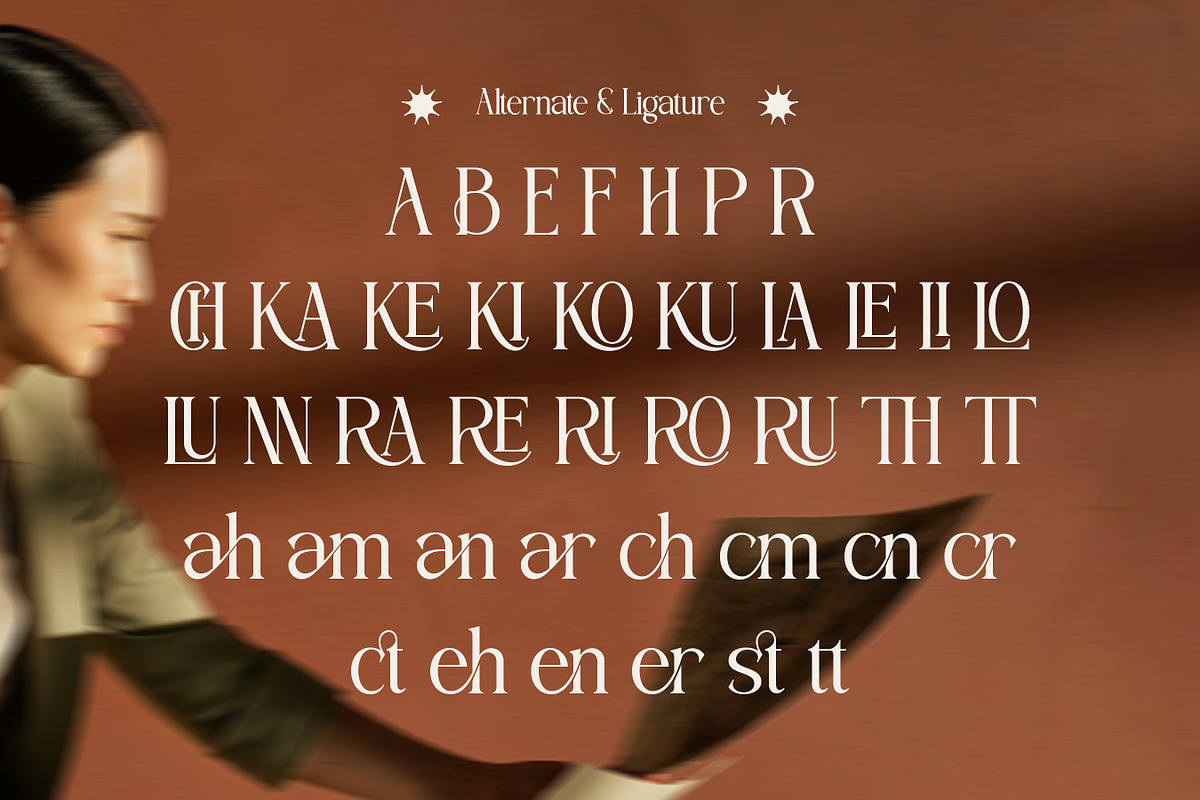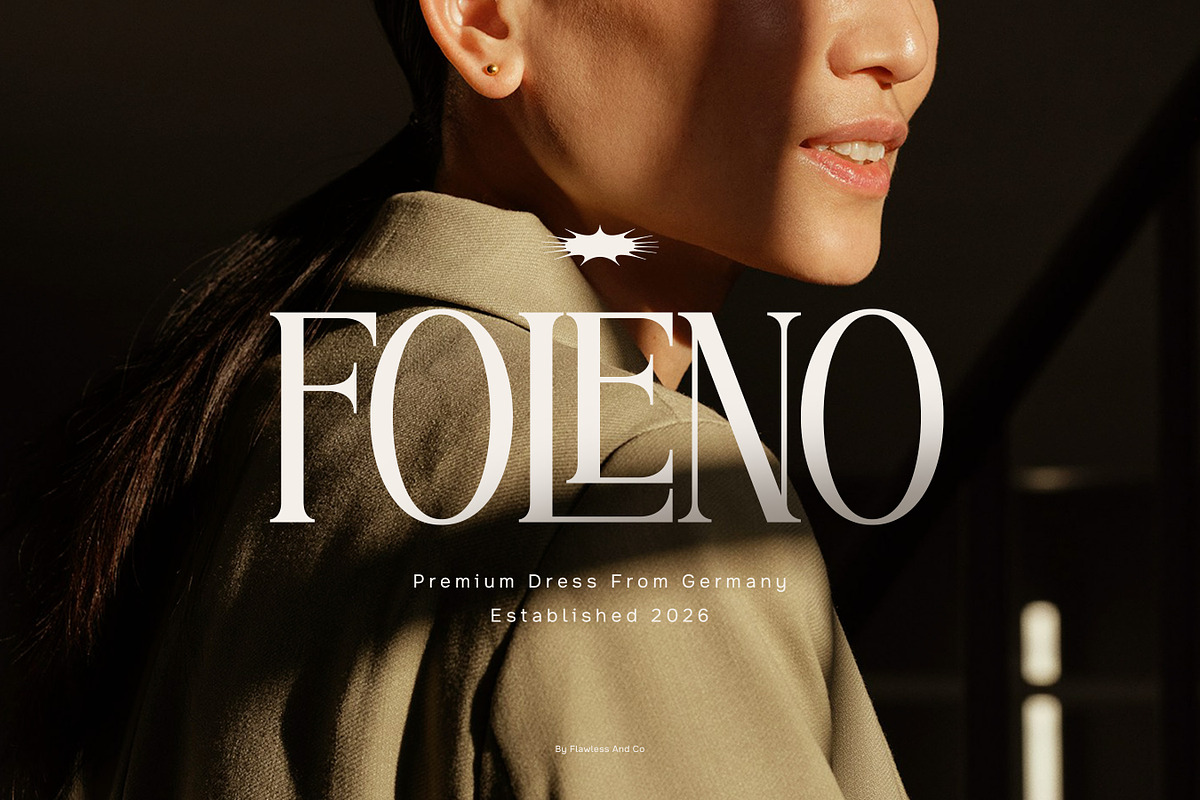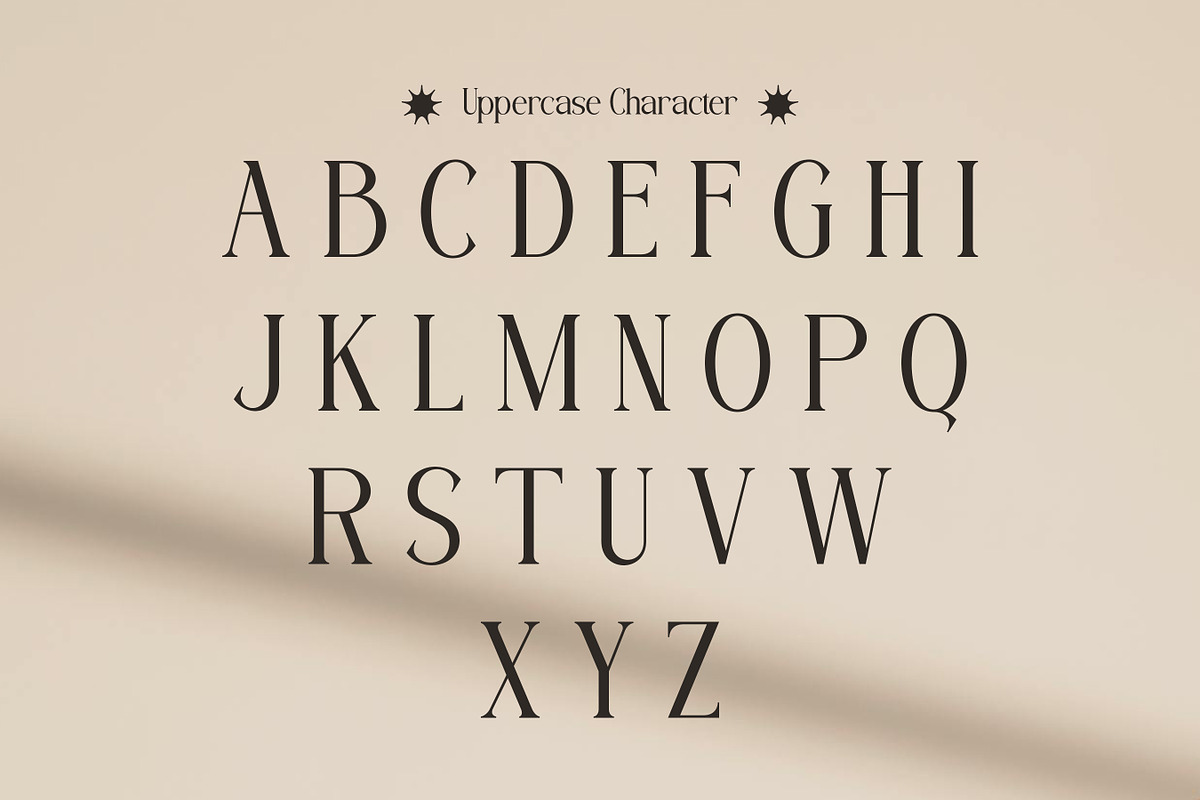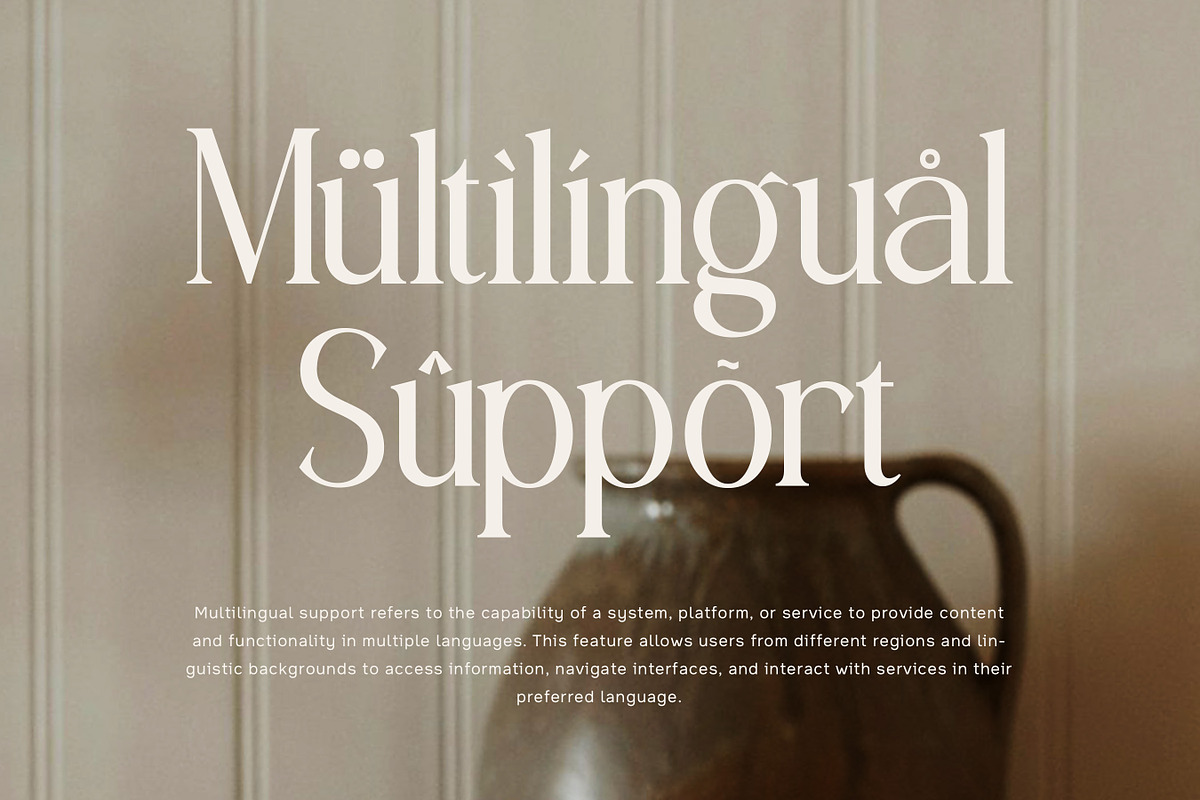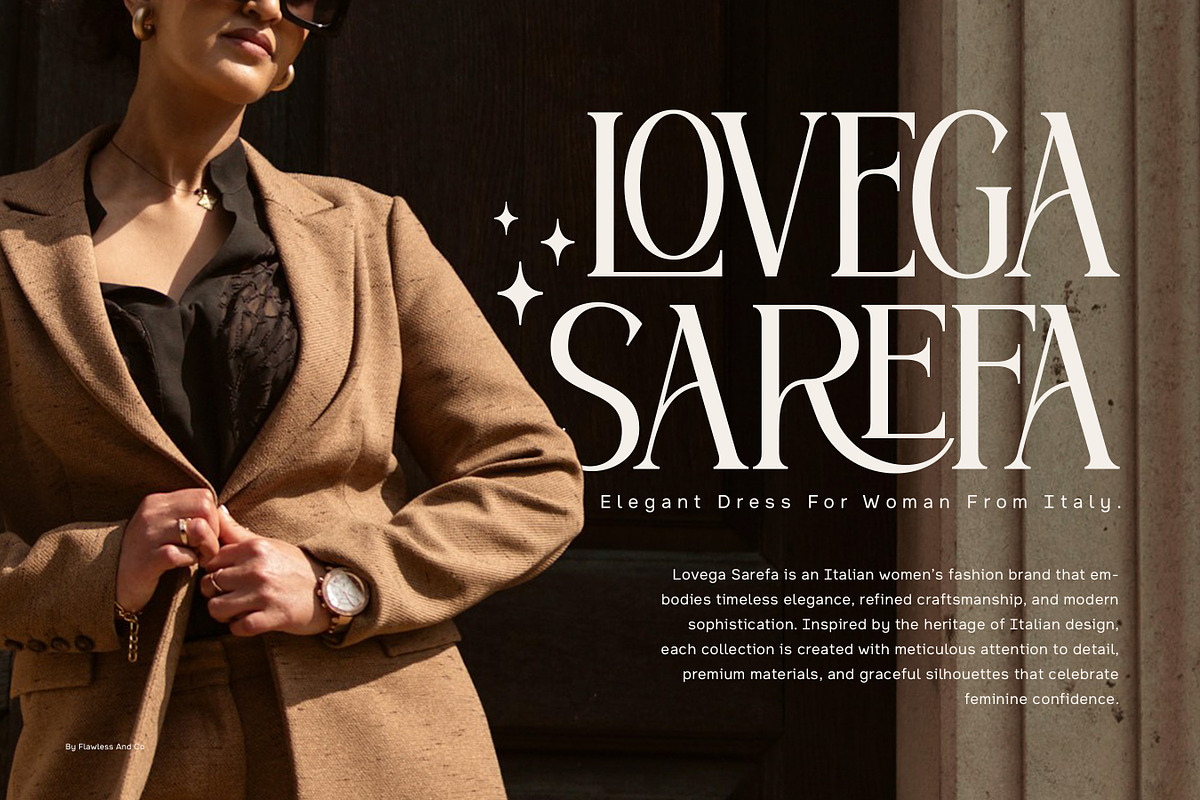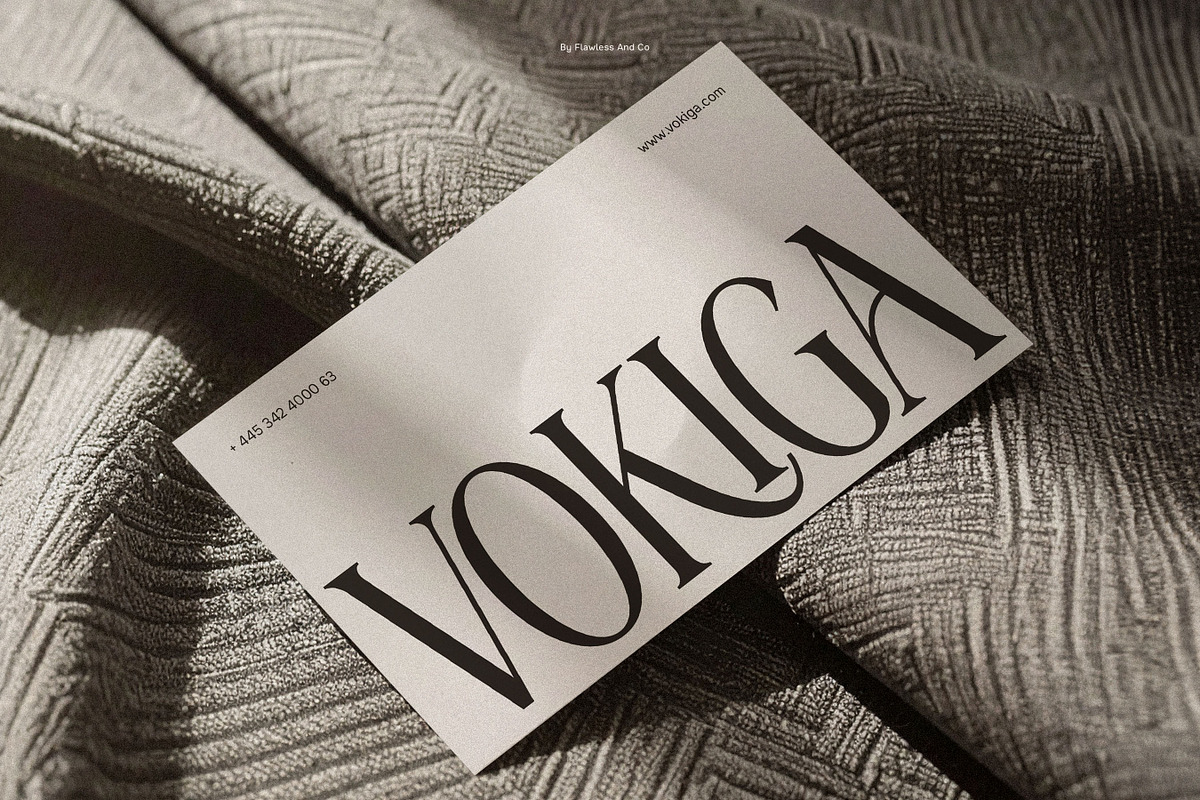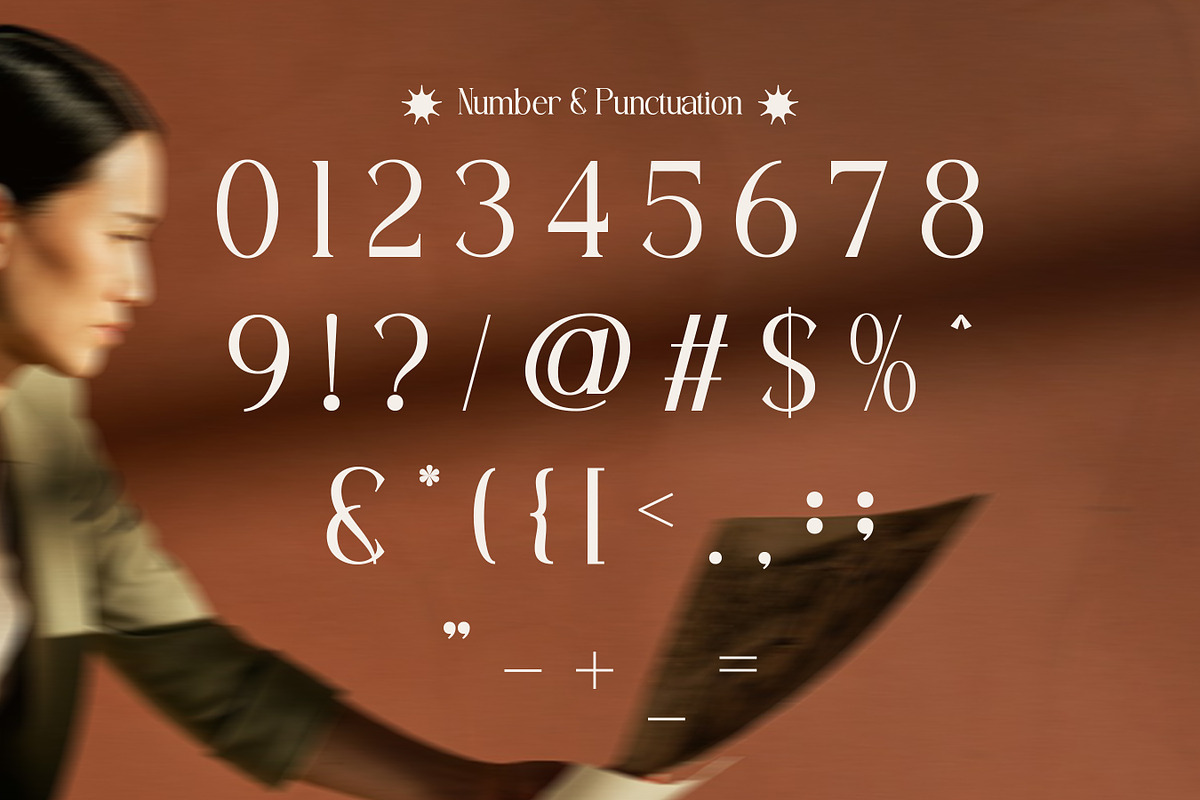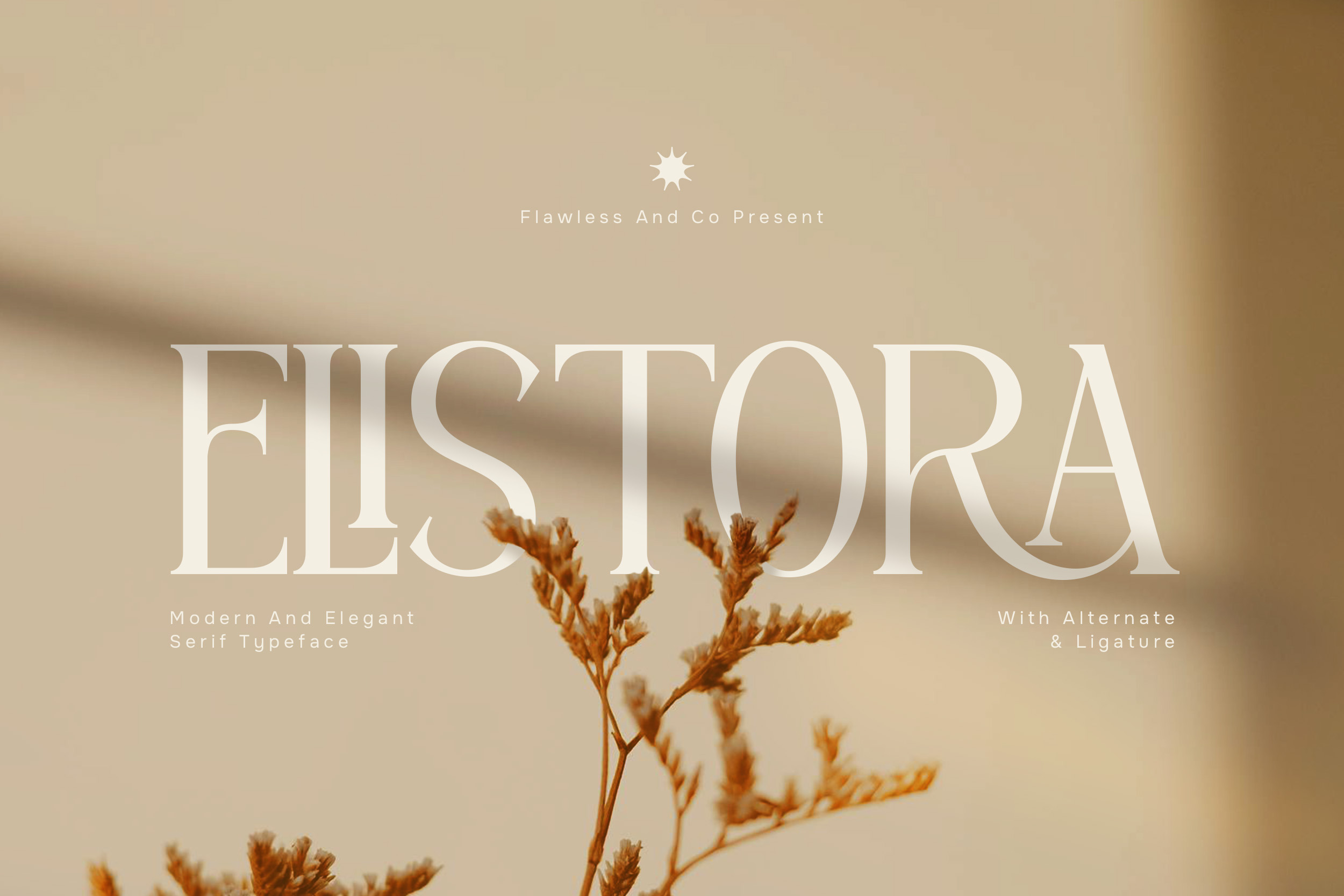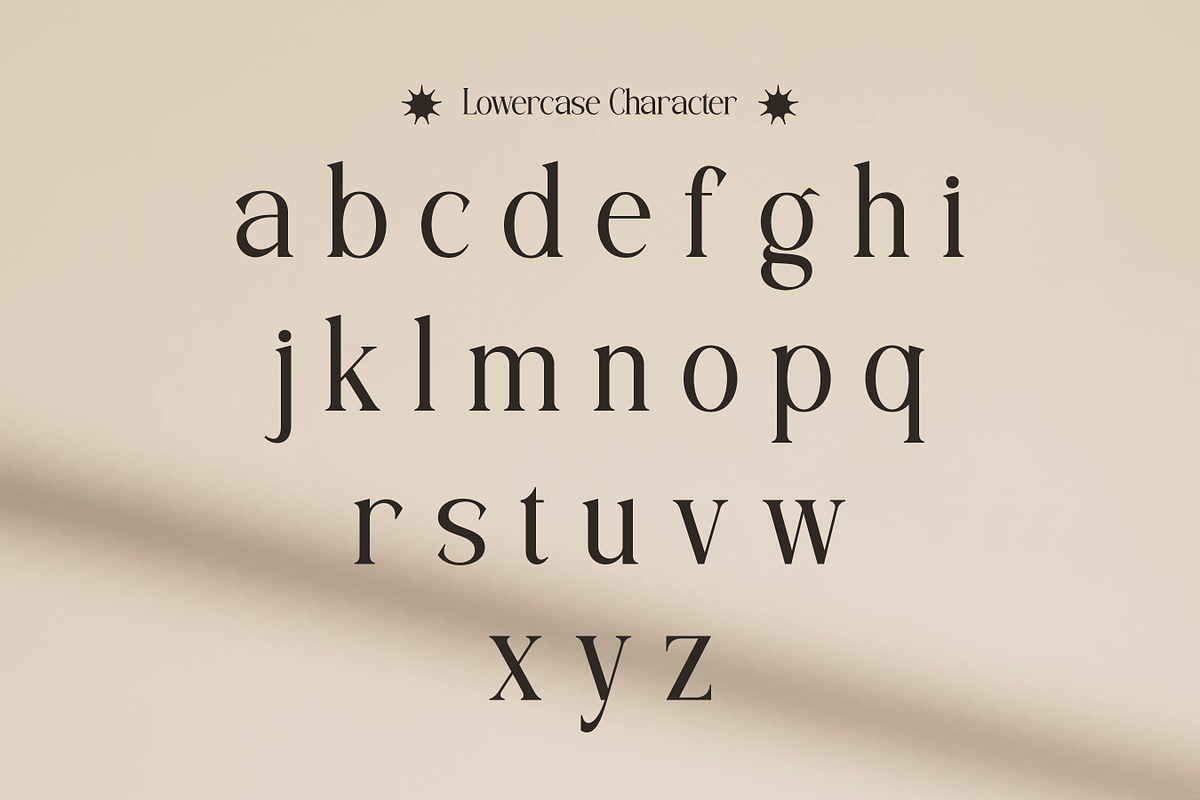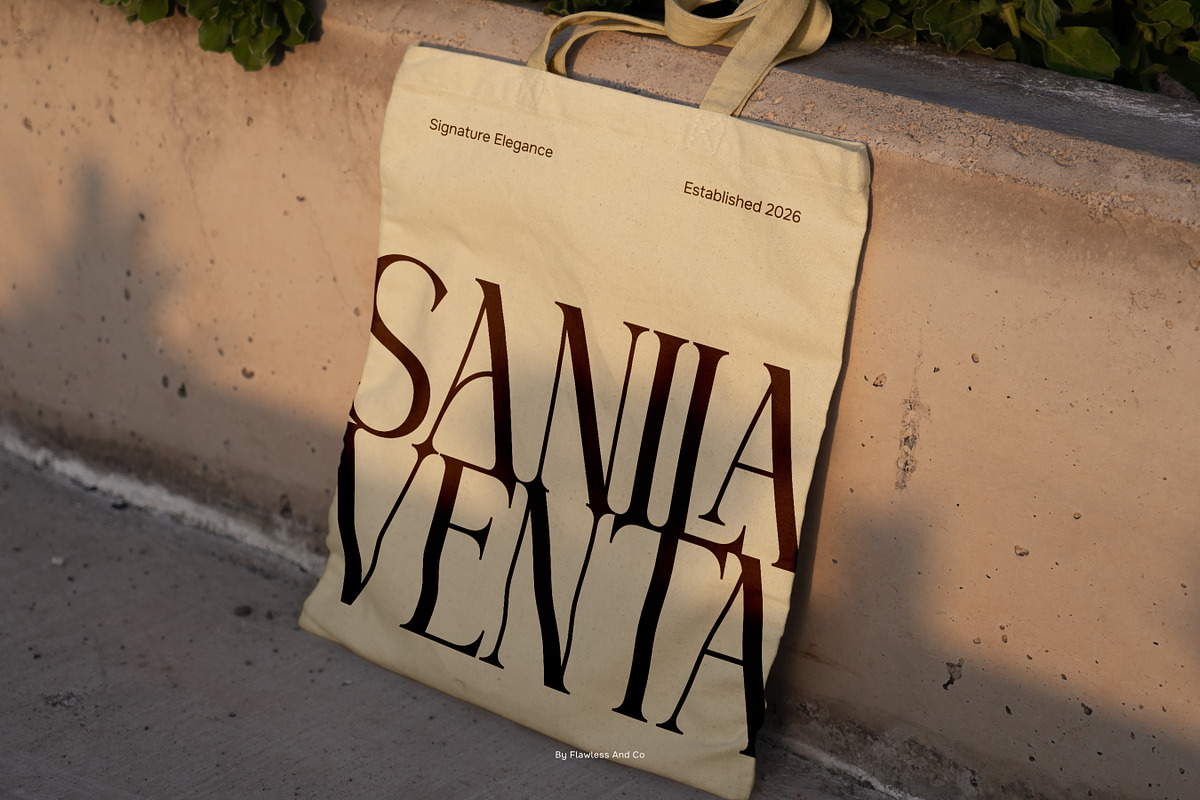
Elistora - Elegant Serif Font
Elistora - Modern and Elegant Serif Font
Elistora is a modern and elegant serif font that captures the essence of sophistication with a refined contemporary touch. Designed with smooth curves, graceful serifs, and balanced proportions, Elistora creates a polished and luxurious look that elevates any design it’s applied to. Blending classic serif beauty with modern simplicity, this font offers a timeless aesthetic while remaining fresh and versatile. Its clean structure ensures excellent readability, while its elegant details add a distinctive and stylish personality.
Who Should Use Elistora?
Elistora is ideal for designers, creatives, and brands seeking a font that communicates elegance and professionalism. It’s especially suited for projects that require a luxurious, modern, and timeless feel.
Suitable For:
- Luxury branding and identity
- Fashion and beauty design
- Editorial and magazine layouts
- Wedding and invitation design
- Packaging and product labels
- Logo and headline design
- Social media graphics
- Elegant typography compositions